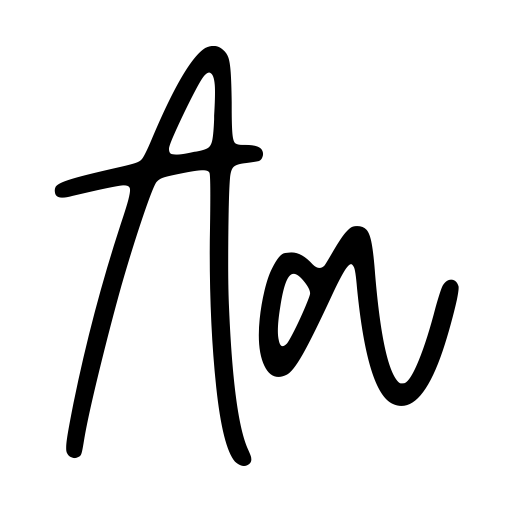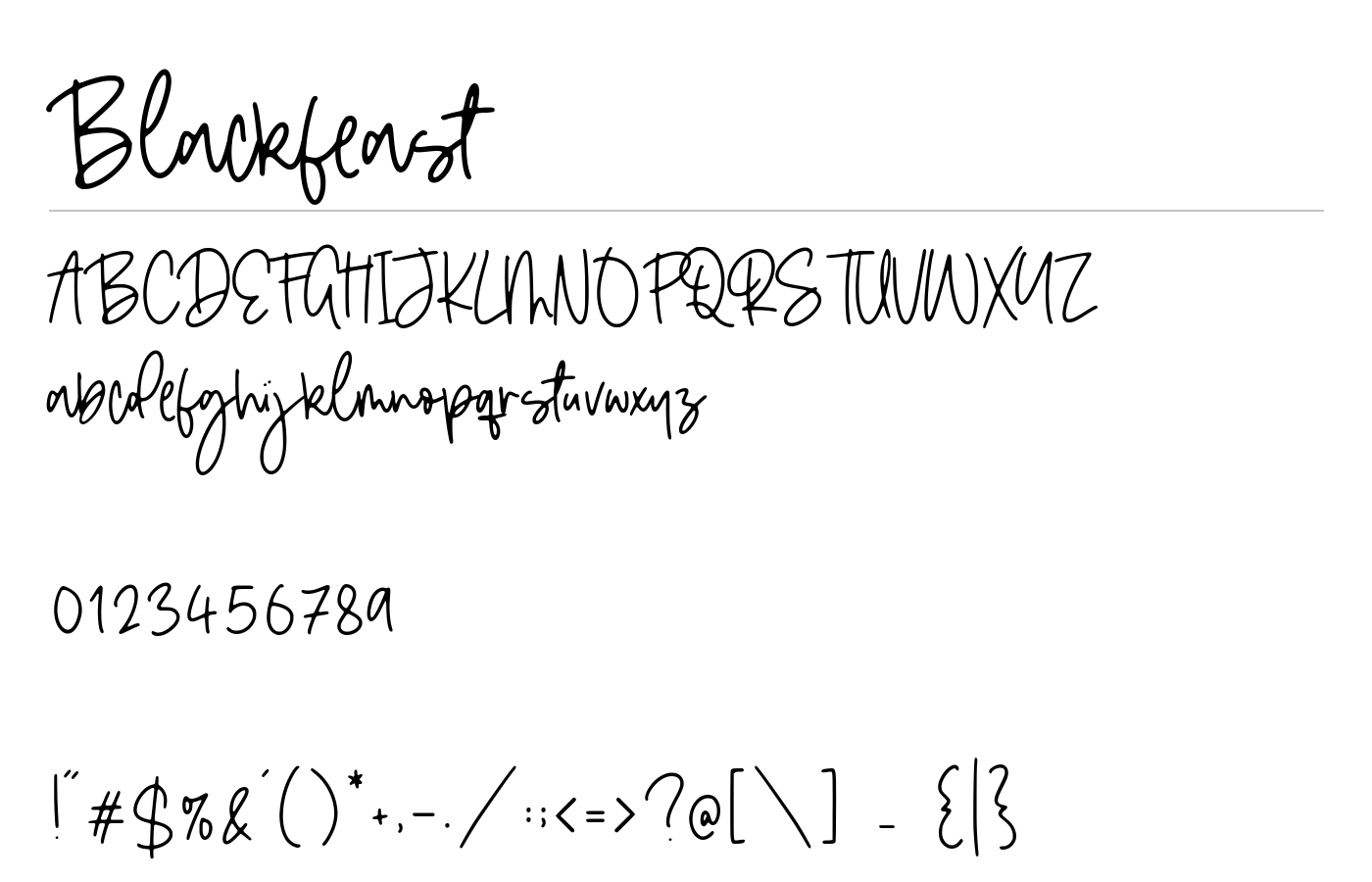
Blackfeast is a playful and casual handwritten font characterized by its tall, narrow letterforms and lively, uneven strokes that mimic natural penmanship. Its light weight and loose spacing give it an airy, informal feel, making it ideal for creative projects, personal branding, and friendly, approachable designs that want to convey authenticity and warmth.
Blackfeast Font
About Blackfeast Font
| Font family | Blackfeast Font |
| Designer | Letterative |